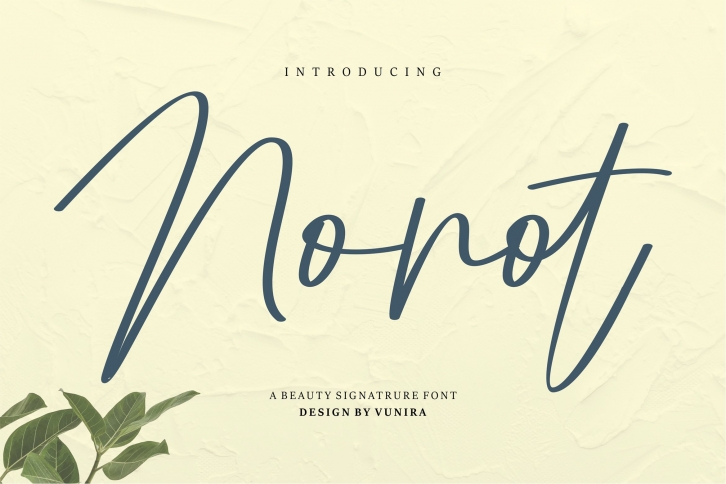
Nonot is a gorgeous font that was realeased on August 21, 2020. The font can be used in many style contexts and design environments. Perfect for invitations, magazines, websites, logos, and more! It was designed by Vunira and the file size is 21.97 MB. Thanks for checking out this font!